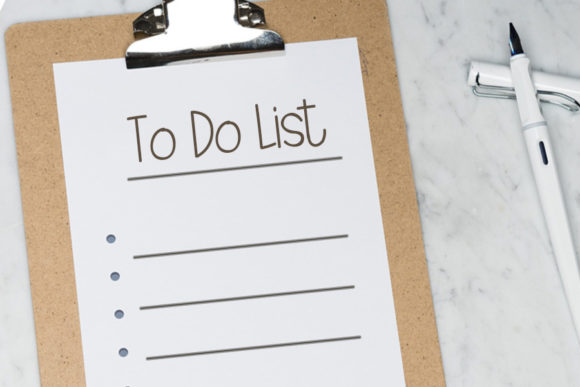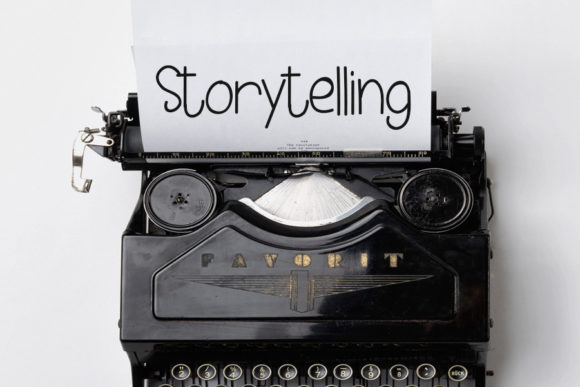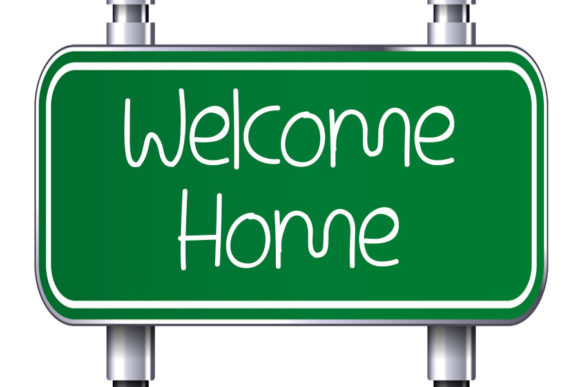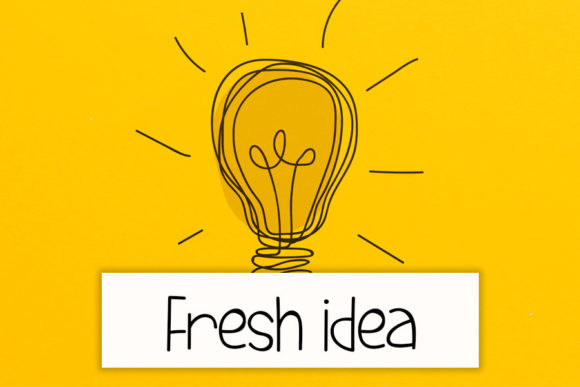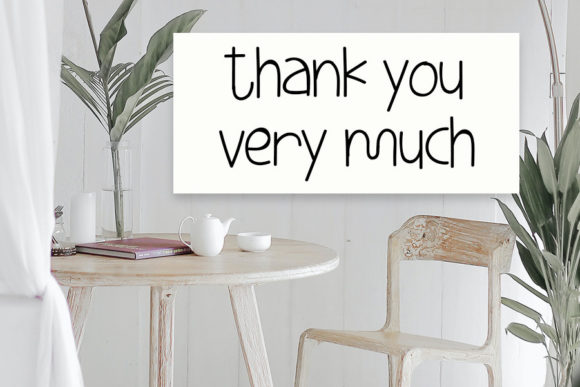
Little Twinkle Font
Little Twinkle is a handwritten font that can be used for all chalkboard quotes or teaching material! Its authentic look and feel will add a personal and realistic feel to your designs.